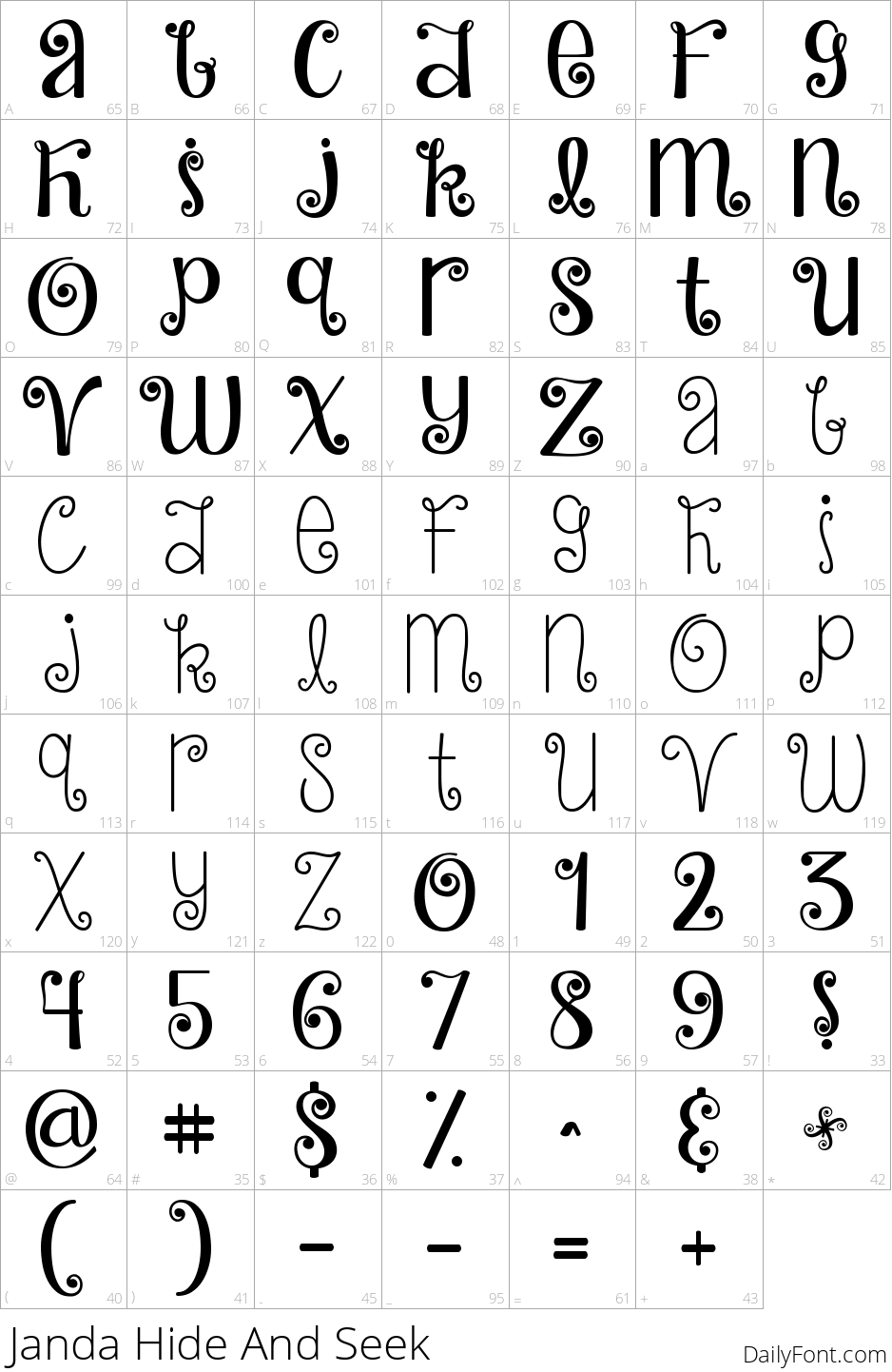
Janda Hide And Seek by Kimberly Geswein
Playful, whimsical script font with childlike charm, perfect for illustrations, children's books, and playful branding.